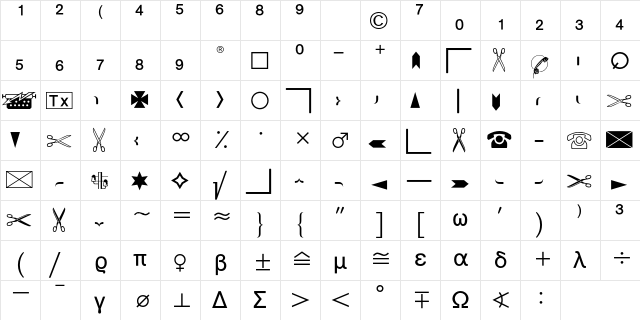
Commercial Pi One BQ Regular
Design Context for Commercial Pi One BQ Typeface
Commercial Pi One BQ is a composed and adaptable typeface that performs quietly and consistently across a wide range of design contexts.